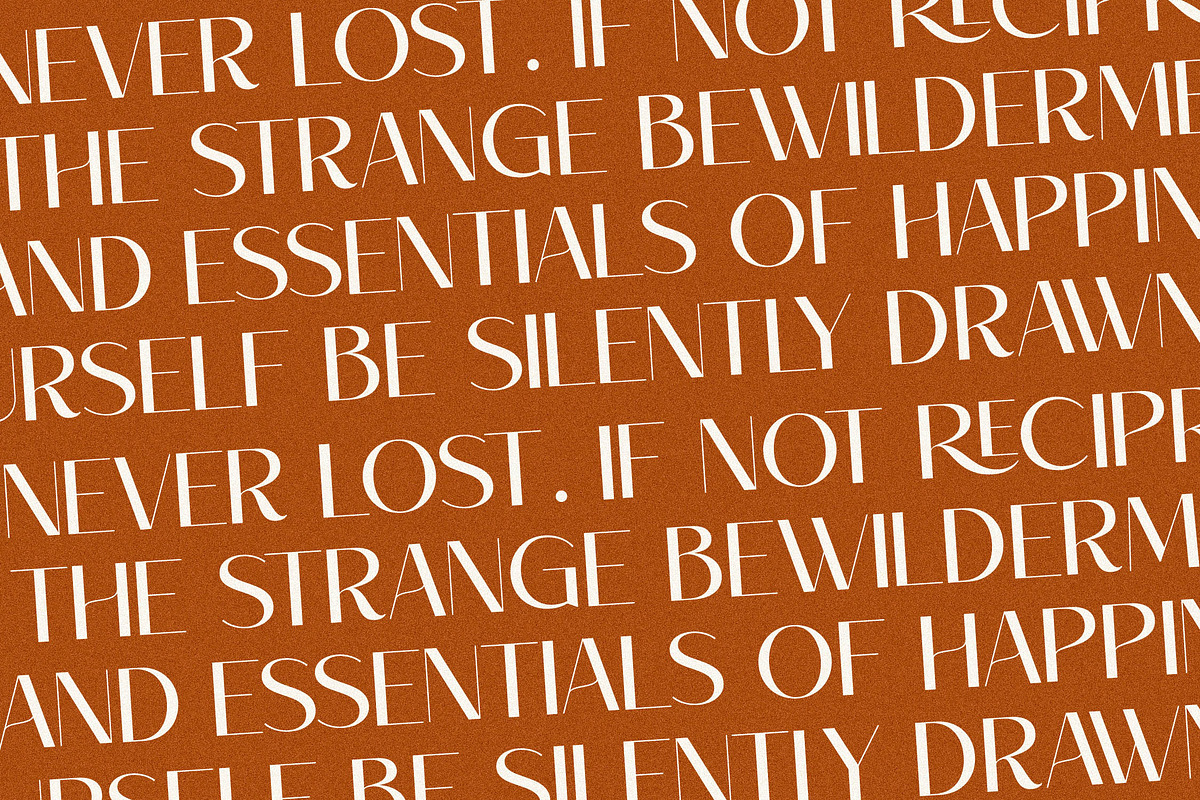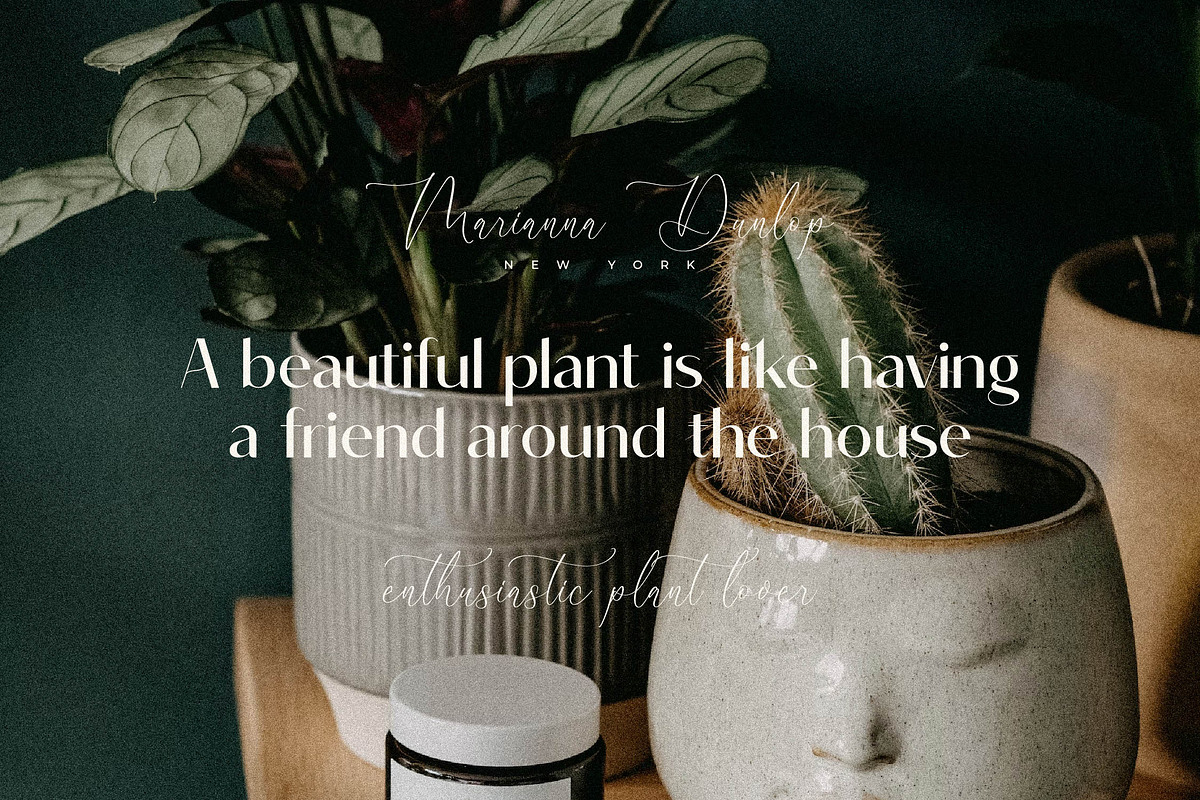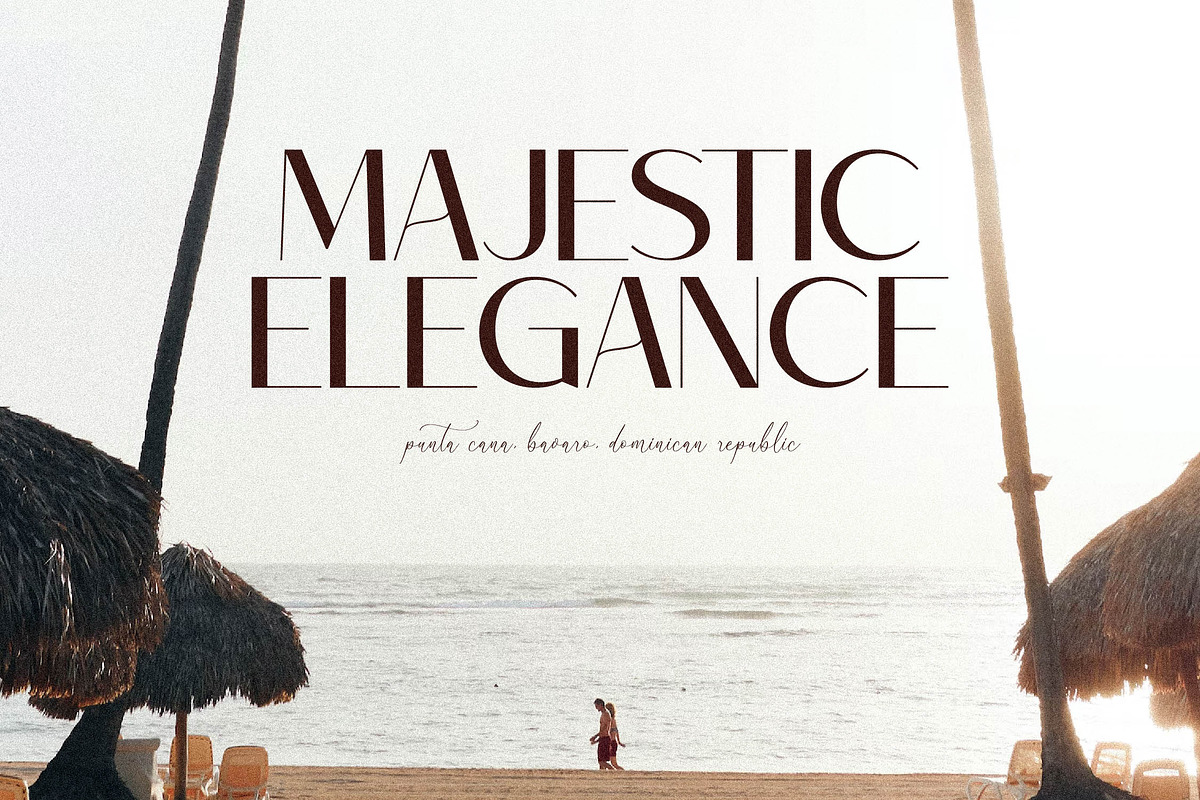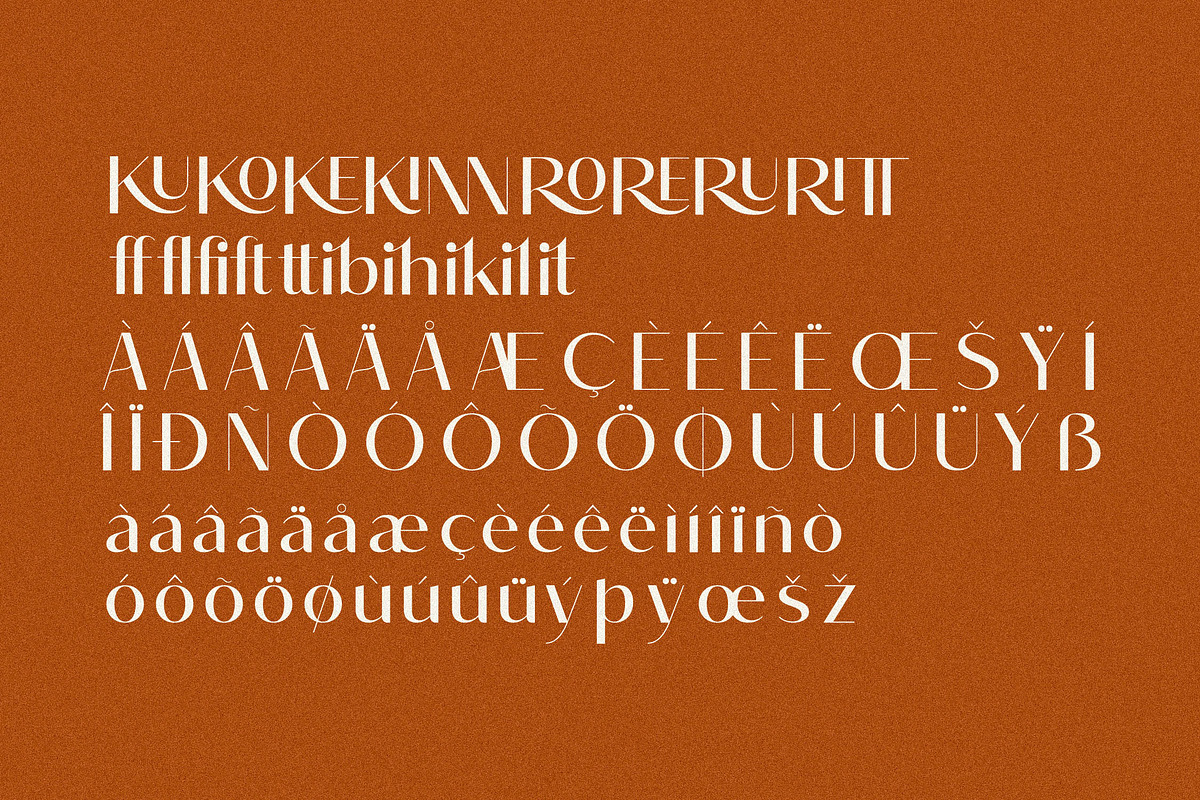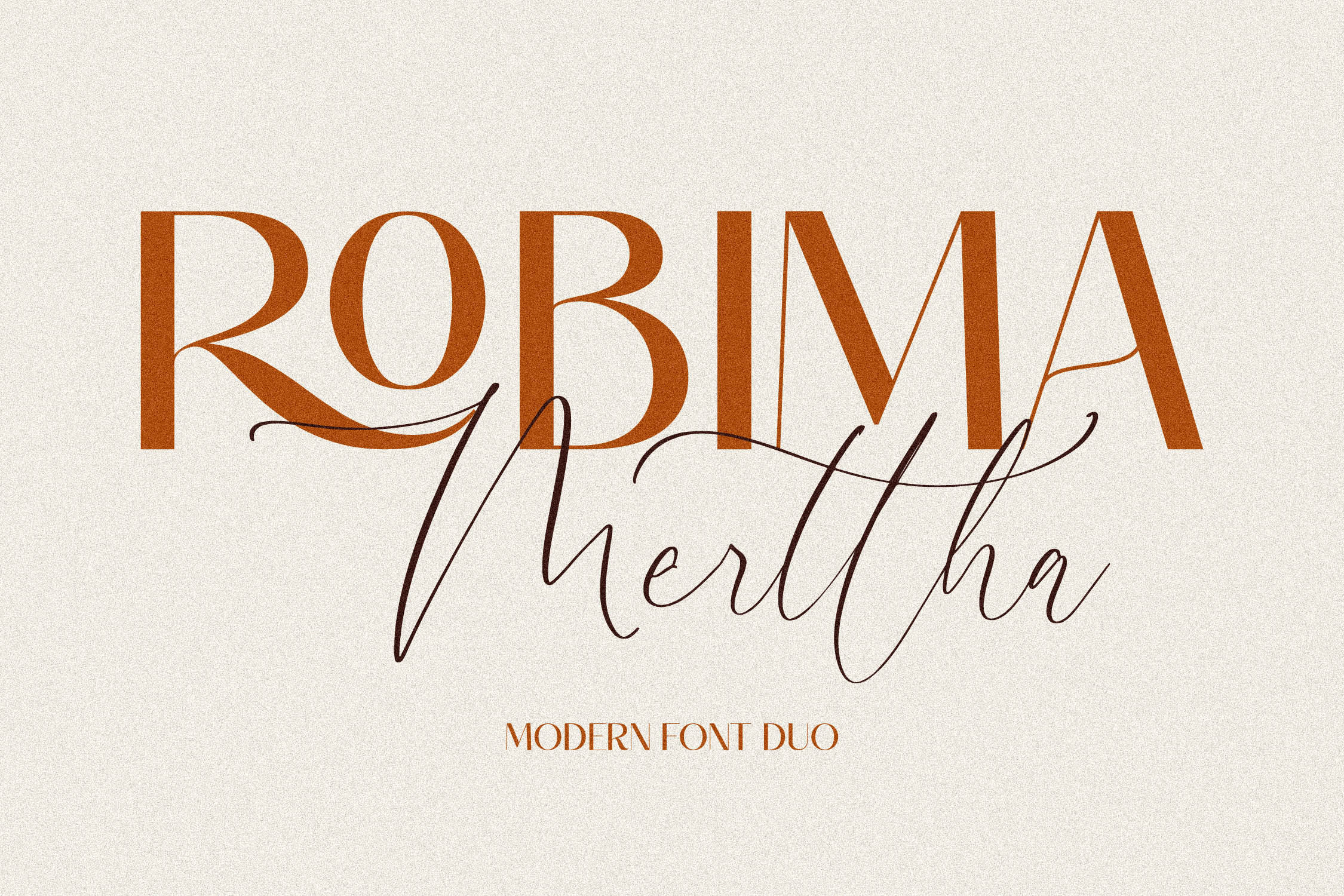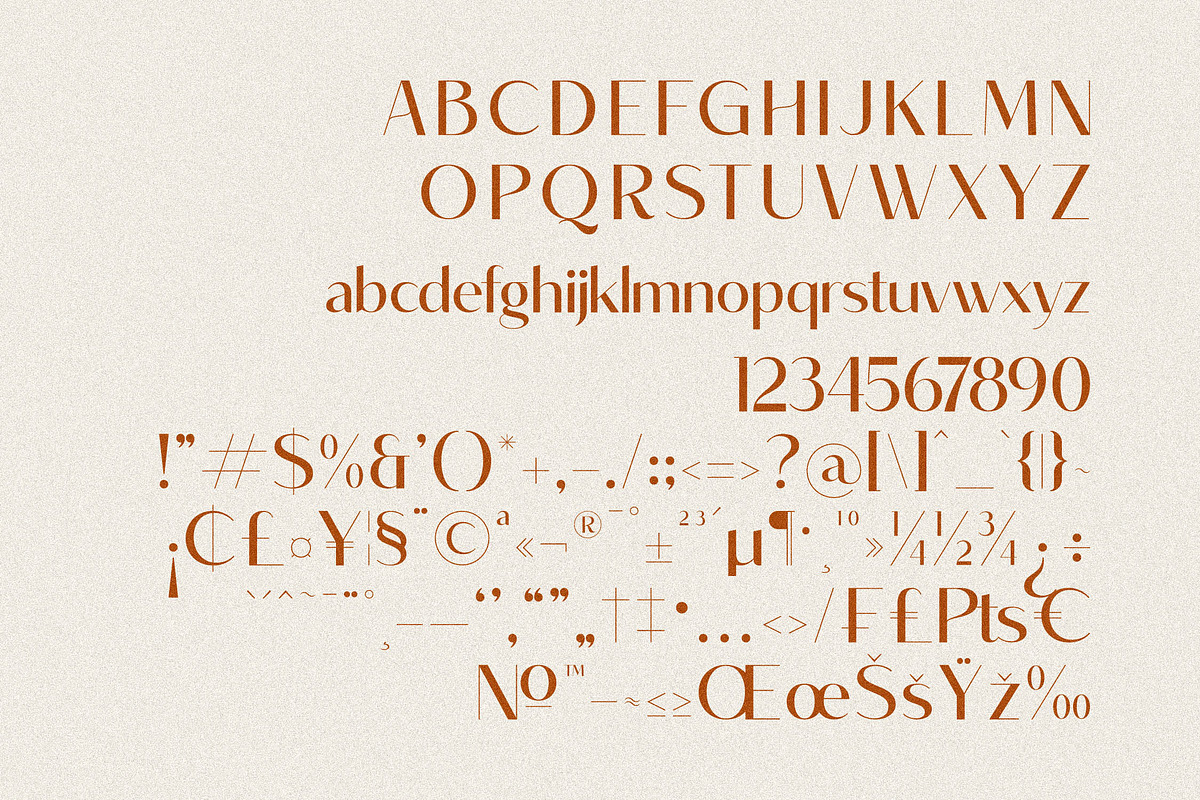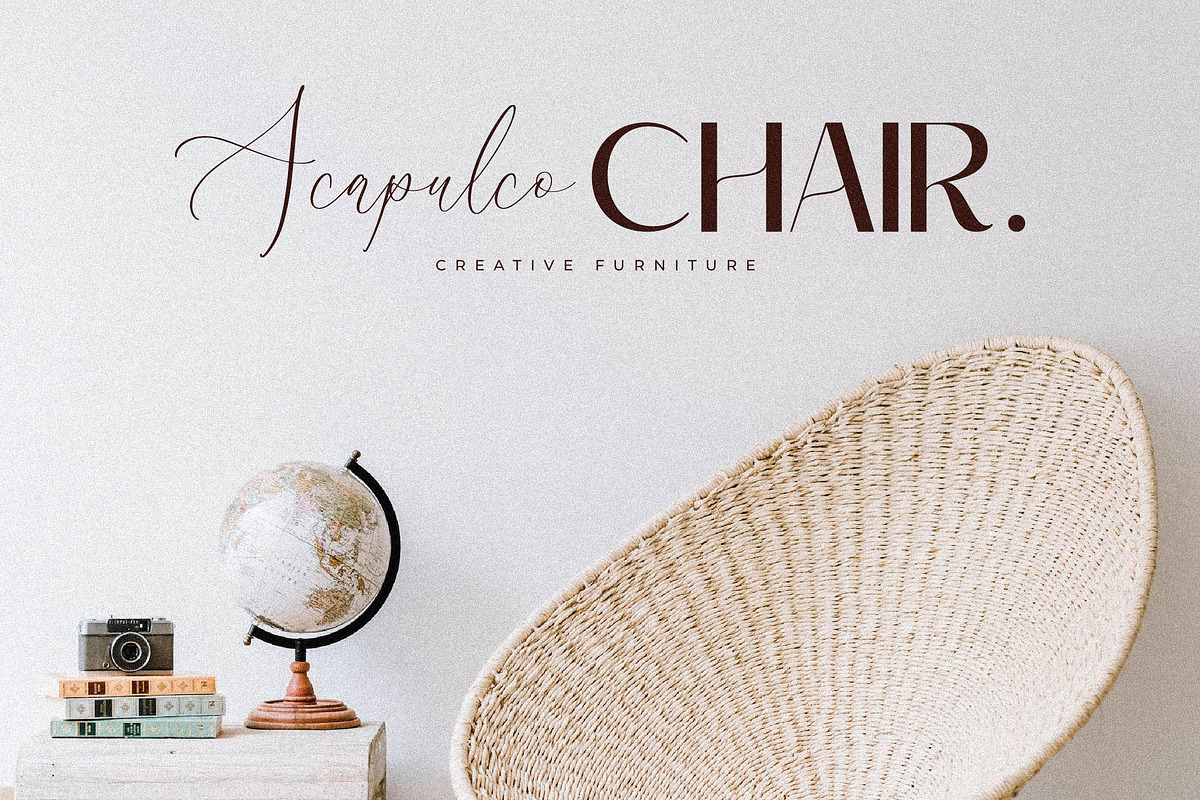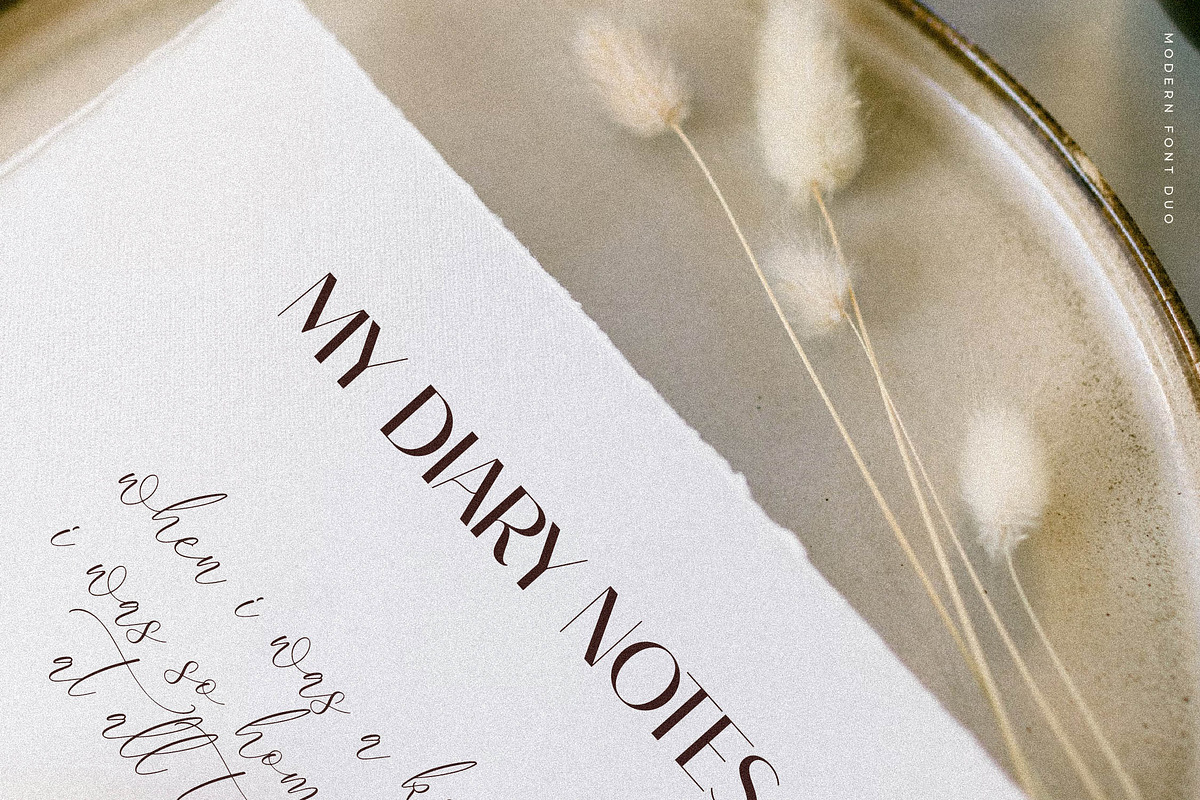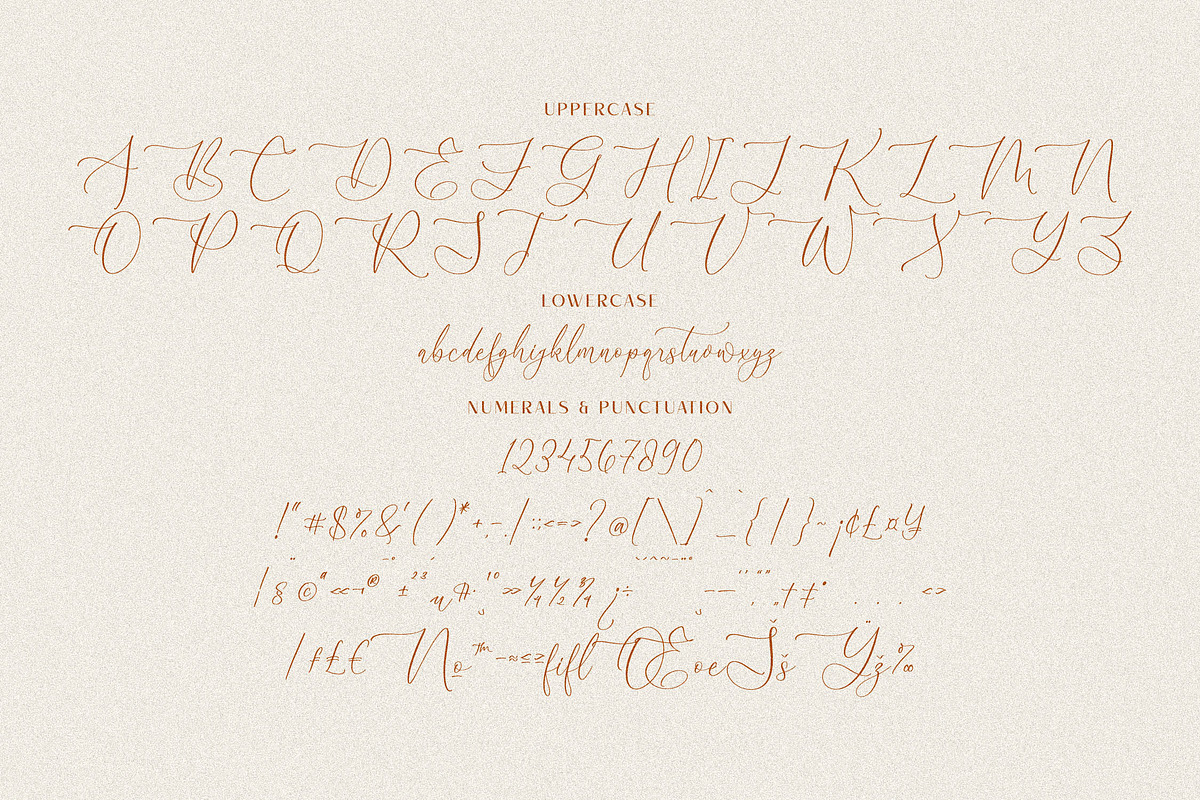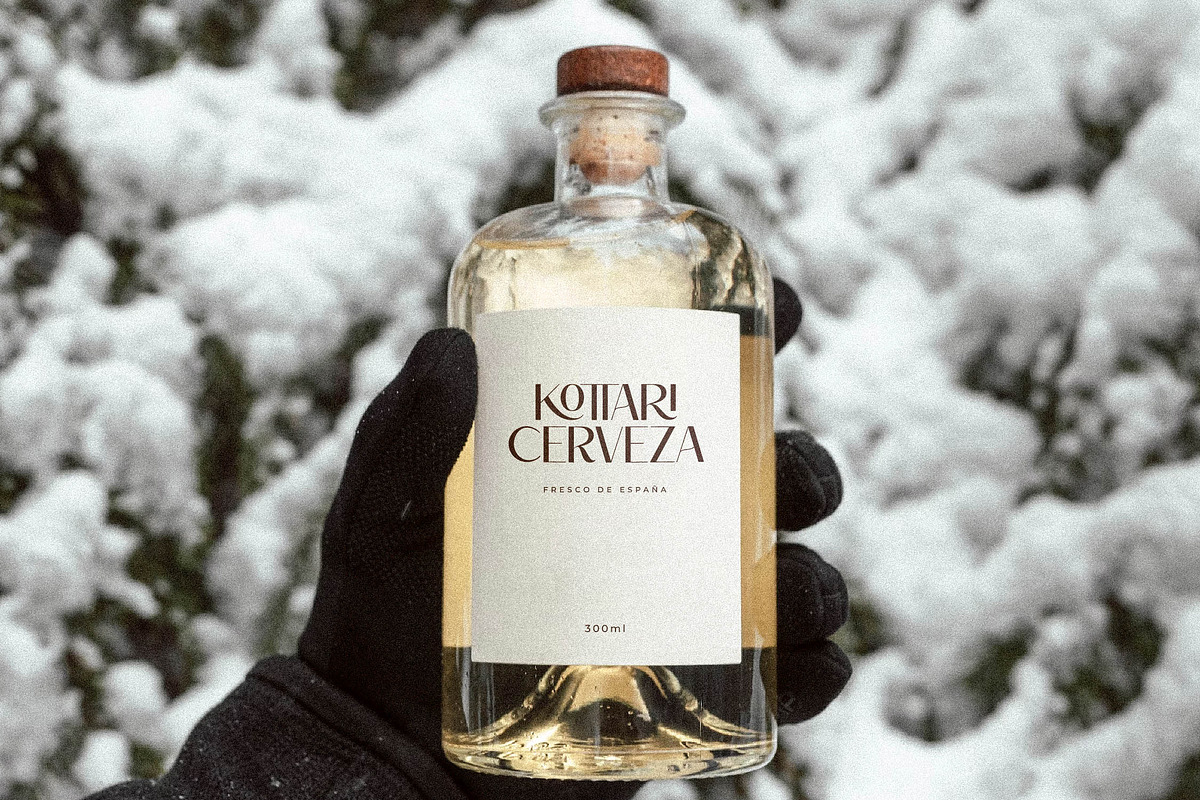
Robima Merttha Font Duo
Proudly present ROBIMA MERTTHA FONT DUO , created by Storytype, A serif and script typeface that has own unique style & modern look. This typeface is perfect for an elegant & luxury logo, book or movie title design, fashion brand, magazine, clothes, lettering, quotes, and so much more.